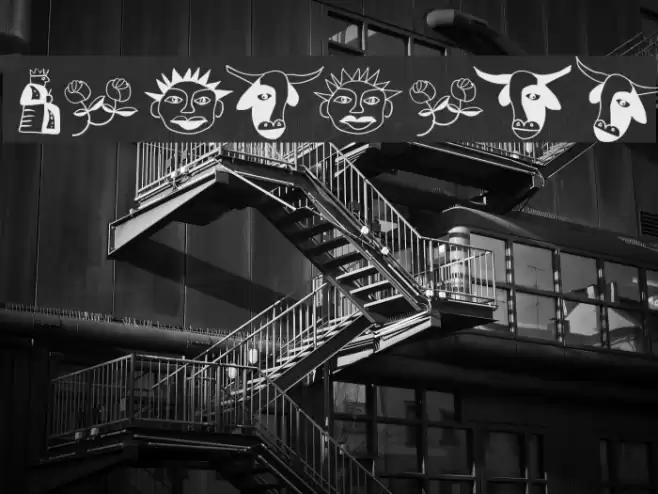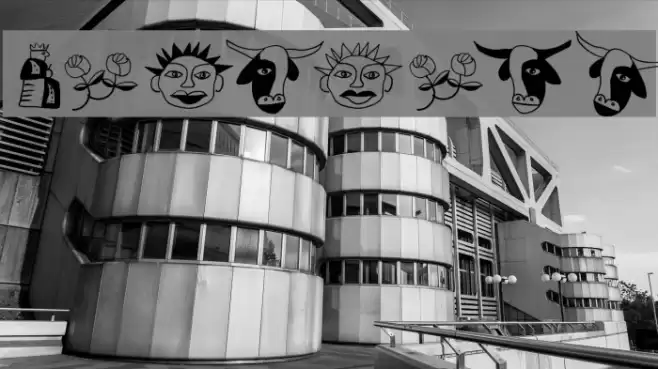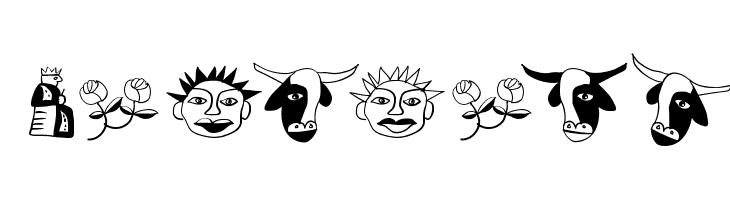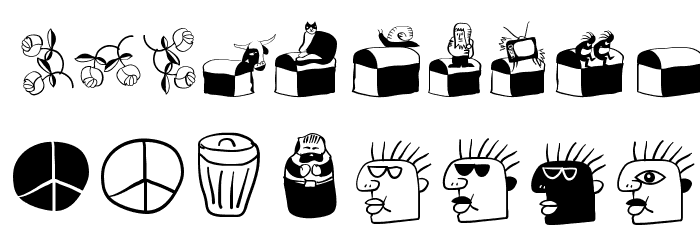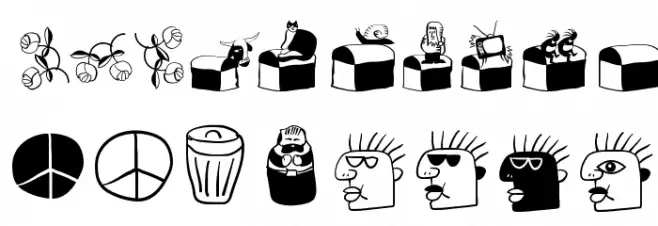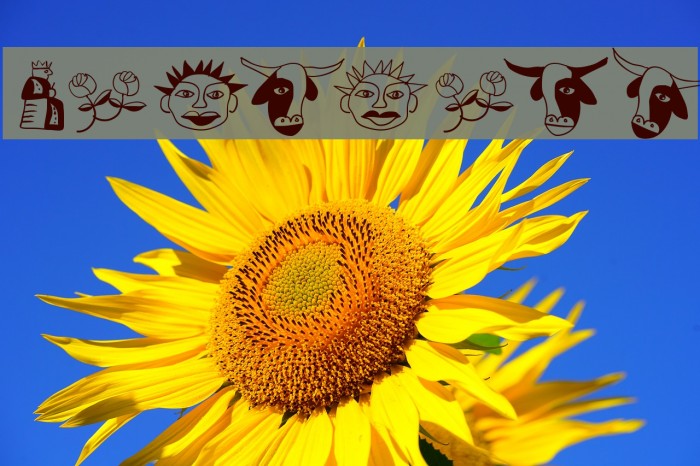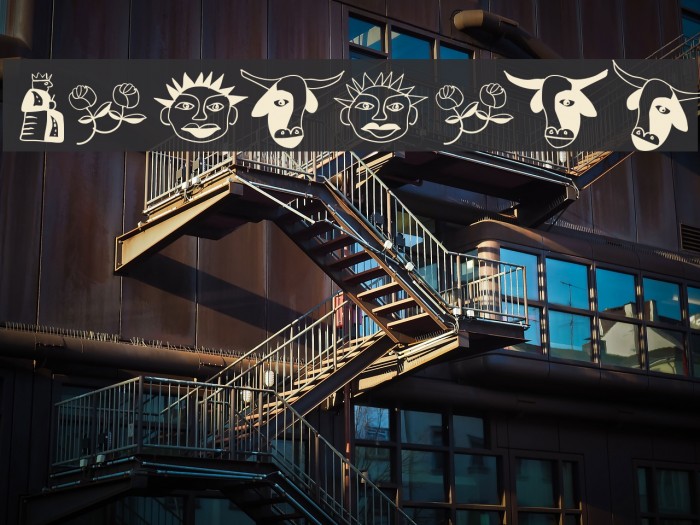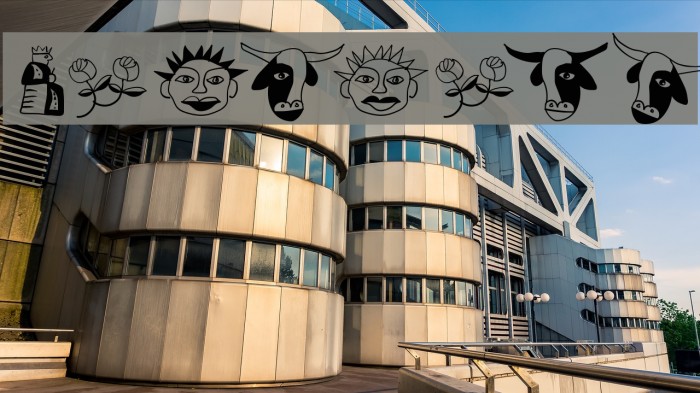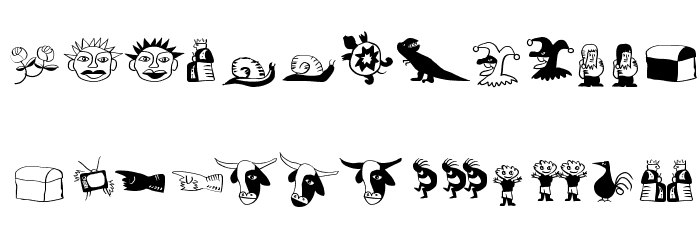
WacObats Font
WacObats Description
This is a highly decorative and whimsical font featuring a variety of playful and imaginative characters. Each glyph is represented by a unique illustration, ranging from animals and abstract shapes to human-like figures and objects. The style is bold and cartoonish, with a strong emphasis on creativity and humor. The characters are intricately detailed, making them more suitable for artistic and expressive design projects rather than traditional text. The font's unique style makes it stand out, offering a fun and engaging visual experience.
A whimsical and decorative font with playful, cartoonish illustrations from Uncategorized fonts.
- Proposed Projects: Ideal for children's books, creative posters, artistic branding, and any project requiring a fun and imaginative touch.
- Use Case: Logos, Posters, Artistic projects